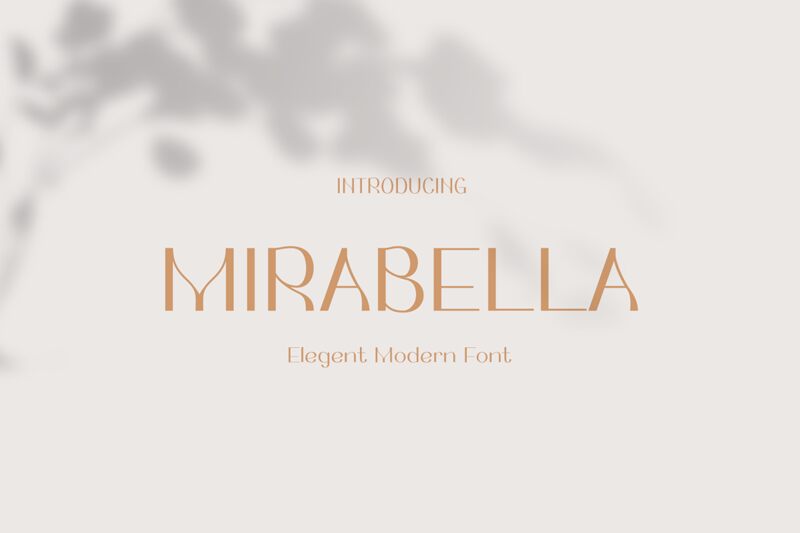
Mirabella font, designed by Pinisiart, stands out as a chic free font with a beautifully clean, curvy, and simple sans serif aesthetic. It combines various typographic aspects for a language variety making it suitable for those with multilingual needs. Mirabella works best when used as the focal point of a project to capture every detail it has in a large size by its readers, but it can also be used in medium and small designs.
This font is a must-have tool for advertising and branding designs, brochures, book and magazine covers, body texts, stationery designs for business cards, flyers, and letters, etc. It can be the front face of your shop’s sign and can be used for personality t-shirts and pins.